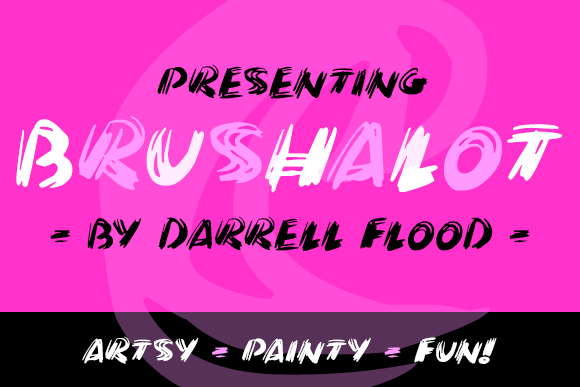
Brushalot Font
Brushalot is a loose, bristly, brush-stroke font, with thick letterforms. Perfect for art projects, classroom themes and signboards, Brushalot is a stunning brush-stroke font to choose from.
Designer Name: | Darrell Flood |
Classification: | Brush Fonts, Script Fonts |